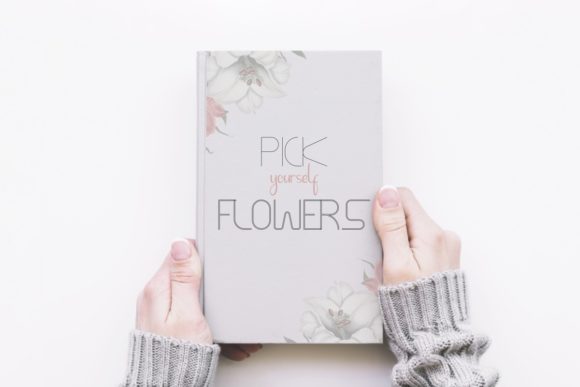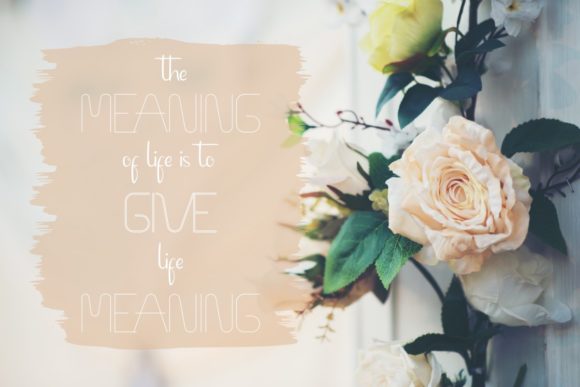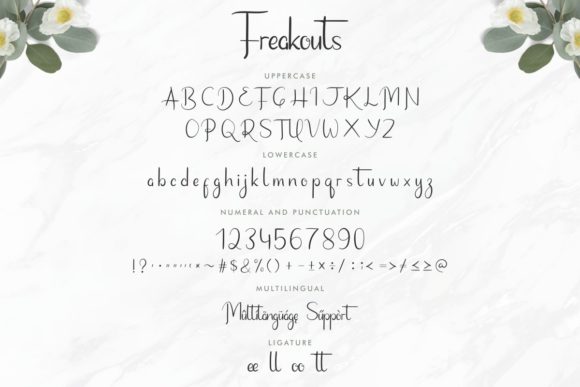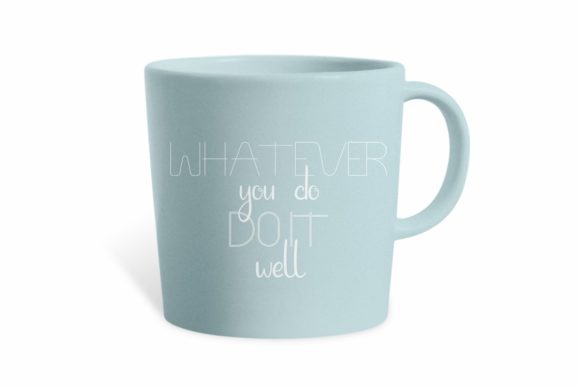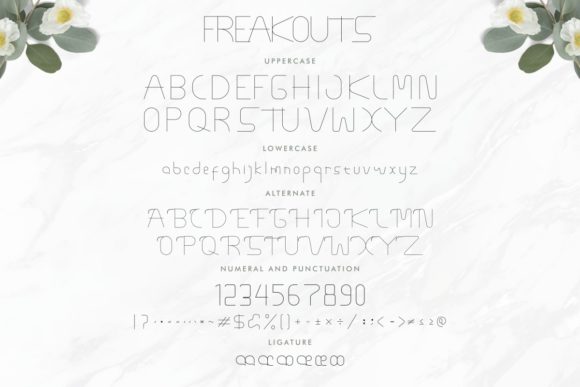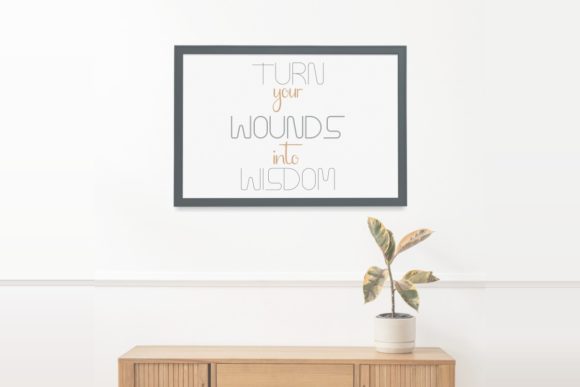
Freakouts Font: Elevate Your Crafts with Chic and Cheery Typography
Are you a designer or crafter looking for the perfect font to add a touch of elegance and playfulness to your projects? Look no further than Freakouts Font, a stunning duo of fonts designed to complement each other perfectly. In this article, we’ll dive into the features and benefits of Freakouts Font, and explore how it can elevate your crafts and designs.
A Perfect Pair: The Freakouts Font Duo
Freakouts Font consists of two carefully crafted fonts that work in harmony to add a chic and cheery touch to your projects. Whether used together or separately, these fonts are sure to make a statement. The duo’s versatility makes it ideal for a wide range of applications, from crafting and scrapbooking to graphic design and digital art.
One of the standout features of Freakouts Font is its PUA (Private Use Area) encoding. This means that you can access all glyphs and swashes with ease, giving you unparalleled creative control. With PUA encoding, you can effortlessly navigate the font’s extensive character set, including ligatures, alternates, and decorative elements.
Freakouts Font offers endless creative possibilities for designers and crafters. Use it to:
- Create stunning handmade cards and invitations
- Add a touch of elegance to your scrapbooking projects
- Design beautiful digital art and graphics
- Develop eye-catching branding and marketing materials
- Enhance your journaling and planner pages
Why Choose Freakouts Font?
So, what sets Freakouts Font apart from other fonts on the market? Here are just a few reasons why designers and crafters love this font:
- Unique and eye-catching design: Freakouts Font boasts a distinctive, stylish aesthetic that’s sure to turn heads.
- Highly versatile: Use it for a wide range of projects, from digital art to handmade crafts.
- Easy to use: PUA encoding makes it simple to access all glyphs and swashes.
Tips for Using Freakouts Font
To get the most out of Freakouts Font, here are a few tips to keep in mind:
- Experiment with different pairings: Try combining Freakouts Font with other fonts or using the duo separately to create unique effects.
- Play with glyphs and swashes: Take advantage of PUA encoding to add decorative elements and personalize your projects.
- Use it in conjunction with other design elements: Combine Freakouts Font with images, textures, and other graphics to create visually striking designs.
Freakouts Font is a game-changer for designers and crafters looking to add a touch of chic and cheery typography to their projects. With its perfect pairing of two complementary fonts, PUA encoding, and endless creative possibilities, this font duo is sure to become a staple in your design toolkit. So why wait? Get creative with Freakouts Font today and take your crafts and designs to the next level!